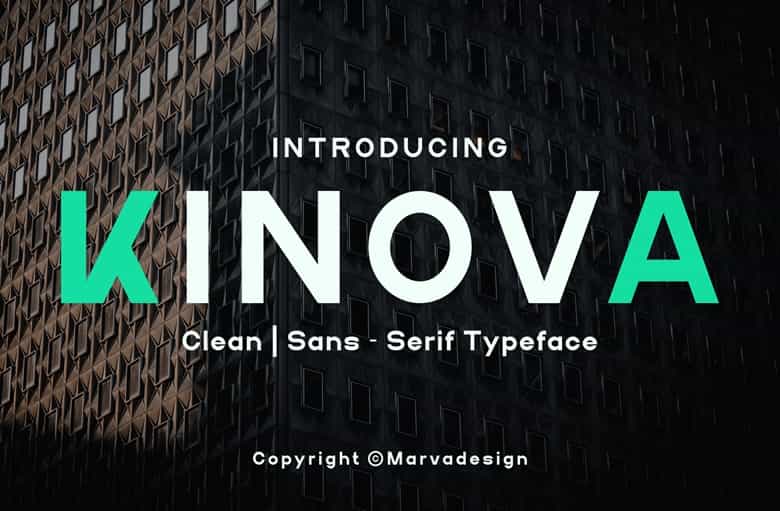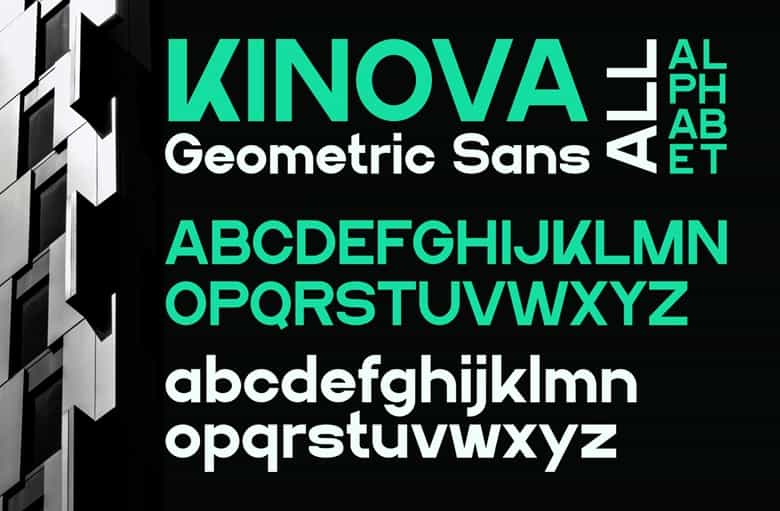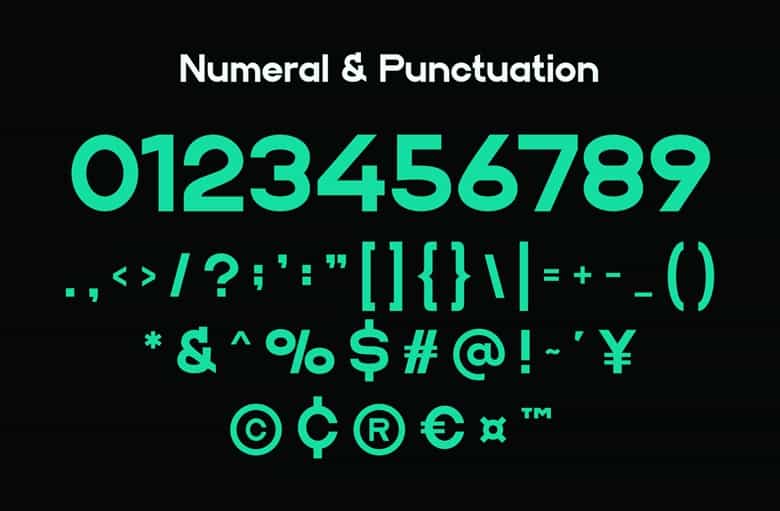
Kinova is refined, clean-cut sans-serif font that was designed as a typeface for usability and readability. It has a sleek look with a moderate geometric shape that would be suitable for different purposes. In branding as well as in the editorial design, we can notice that Kinova gives a more professional and classy touch.